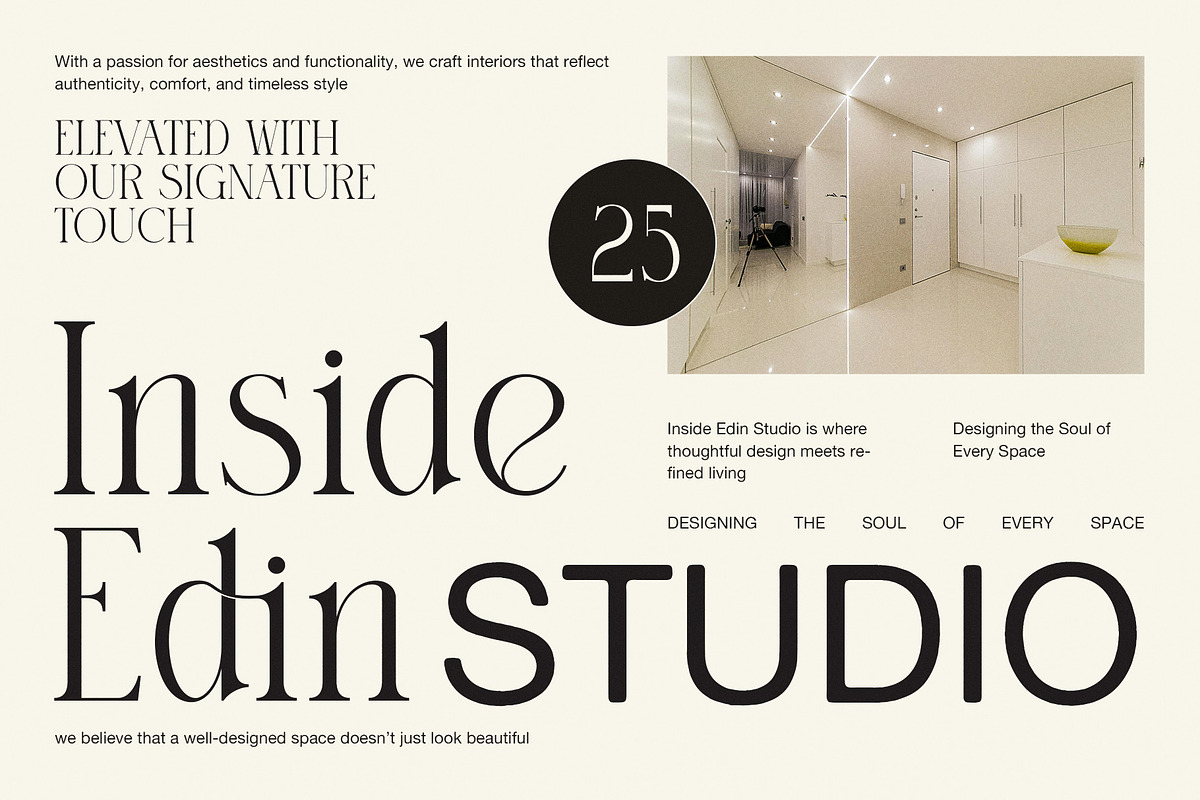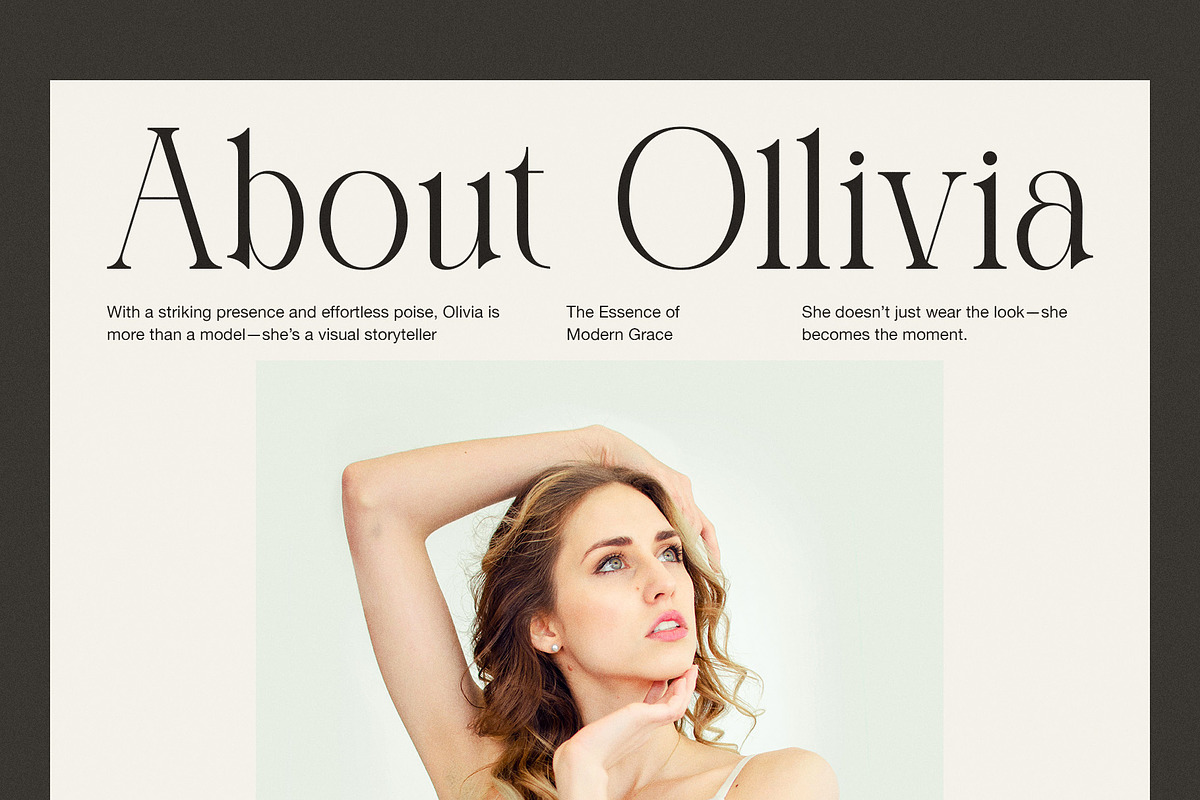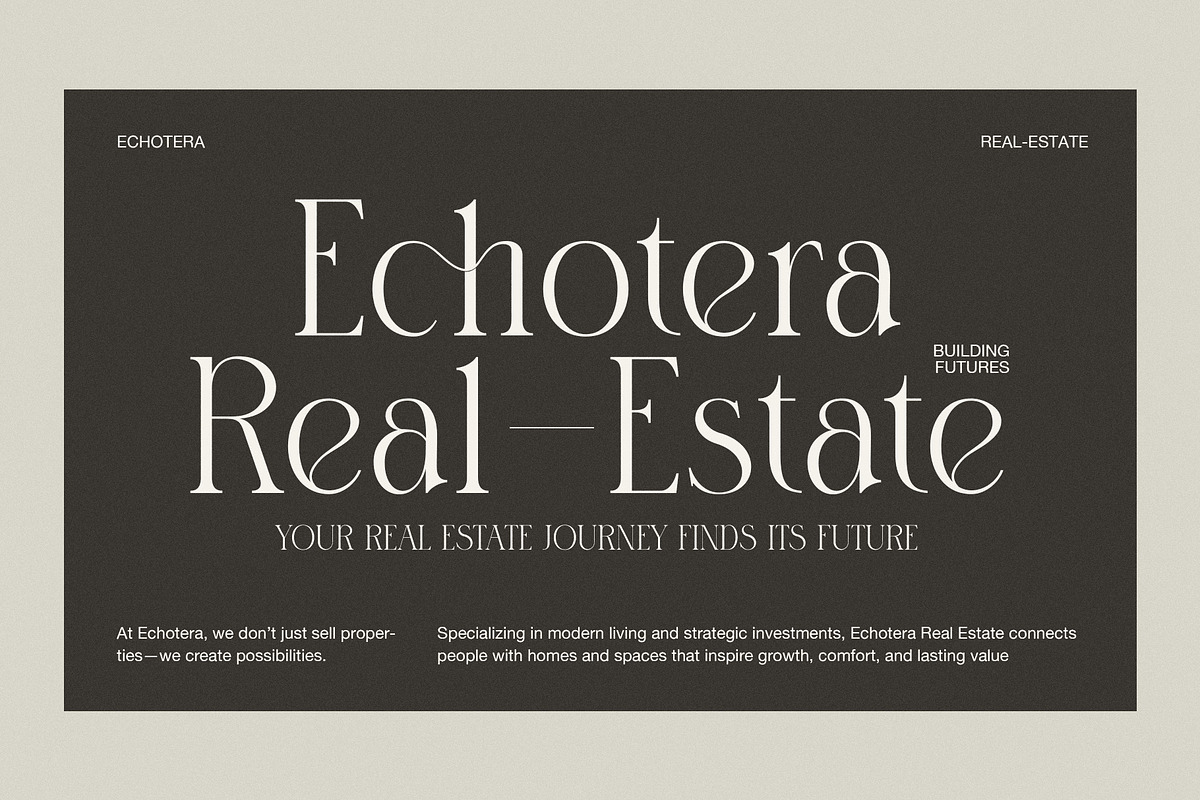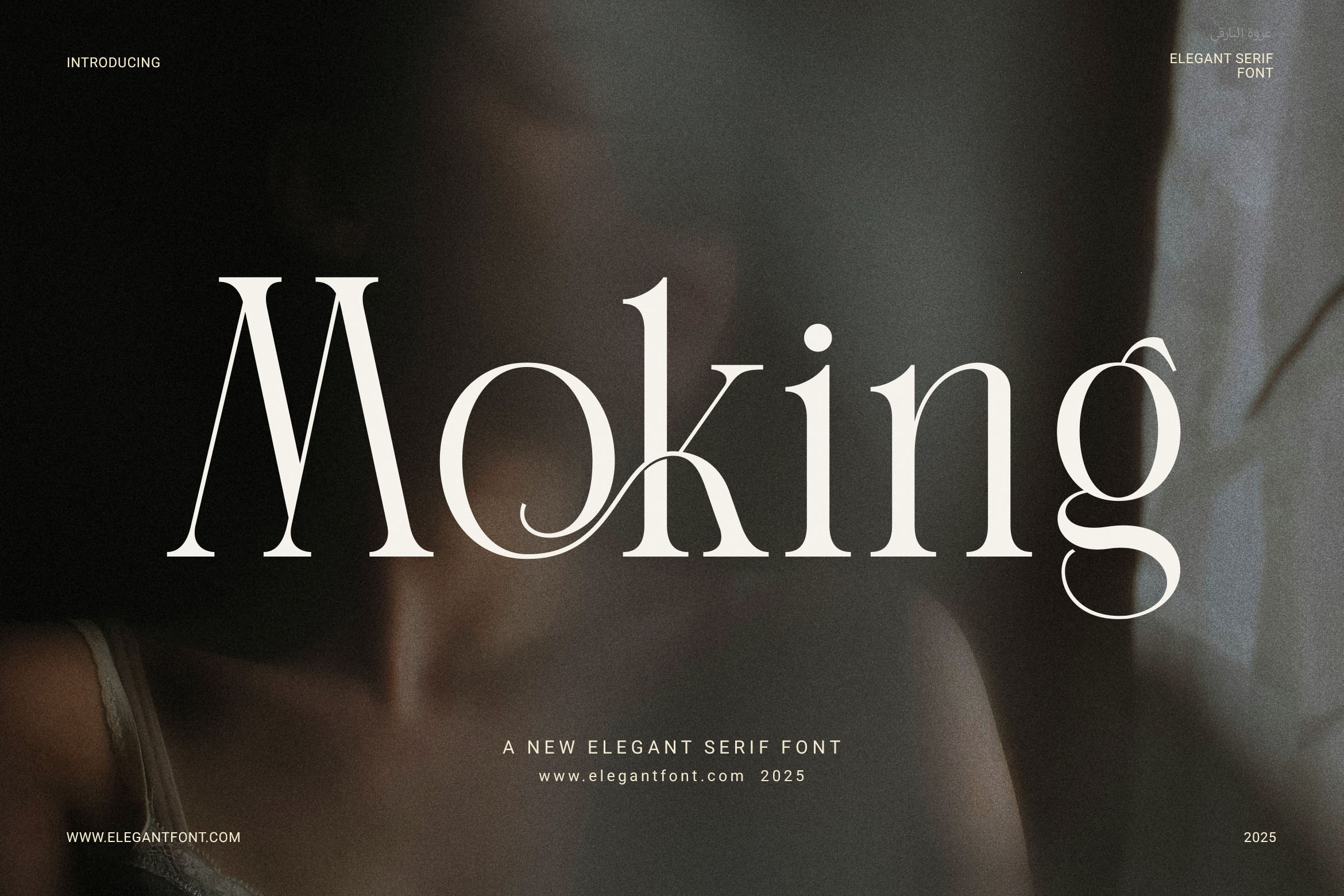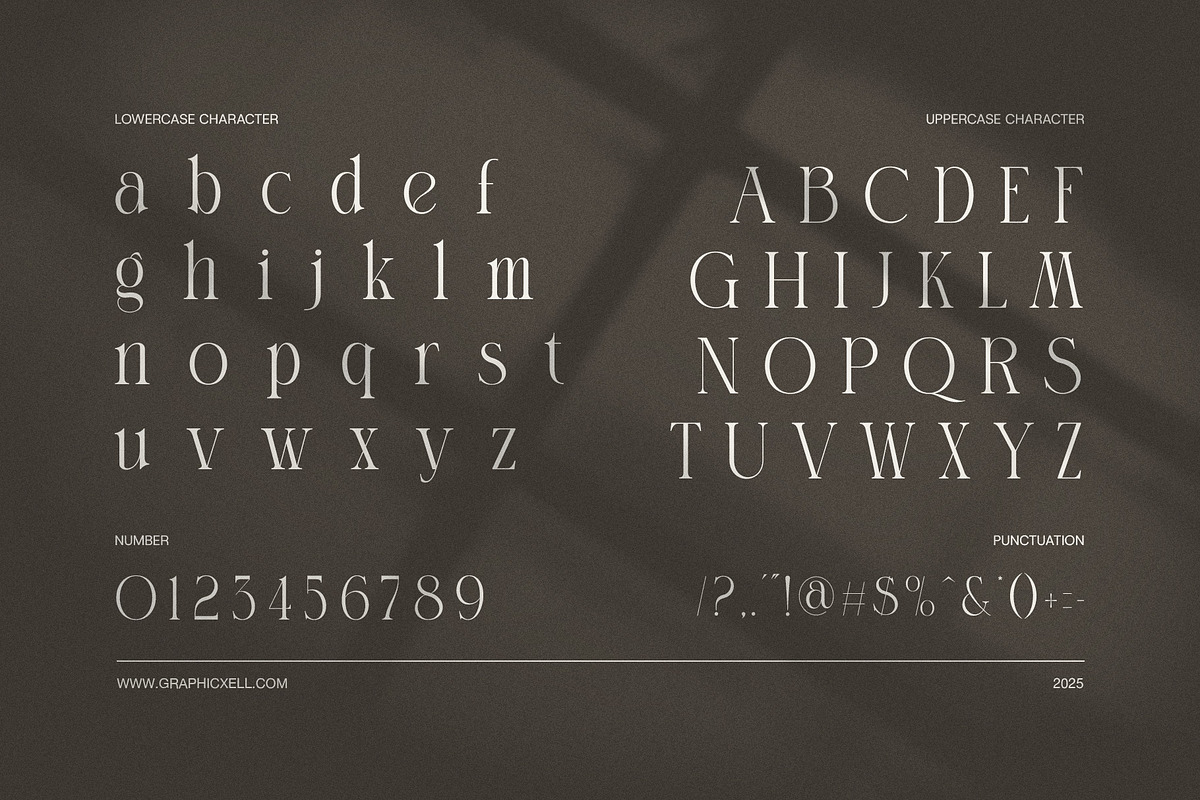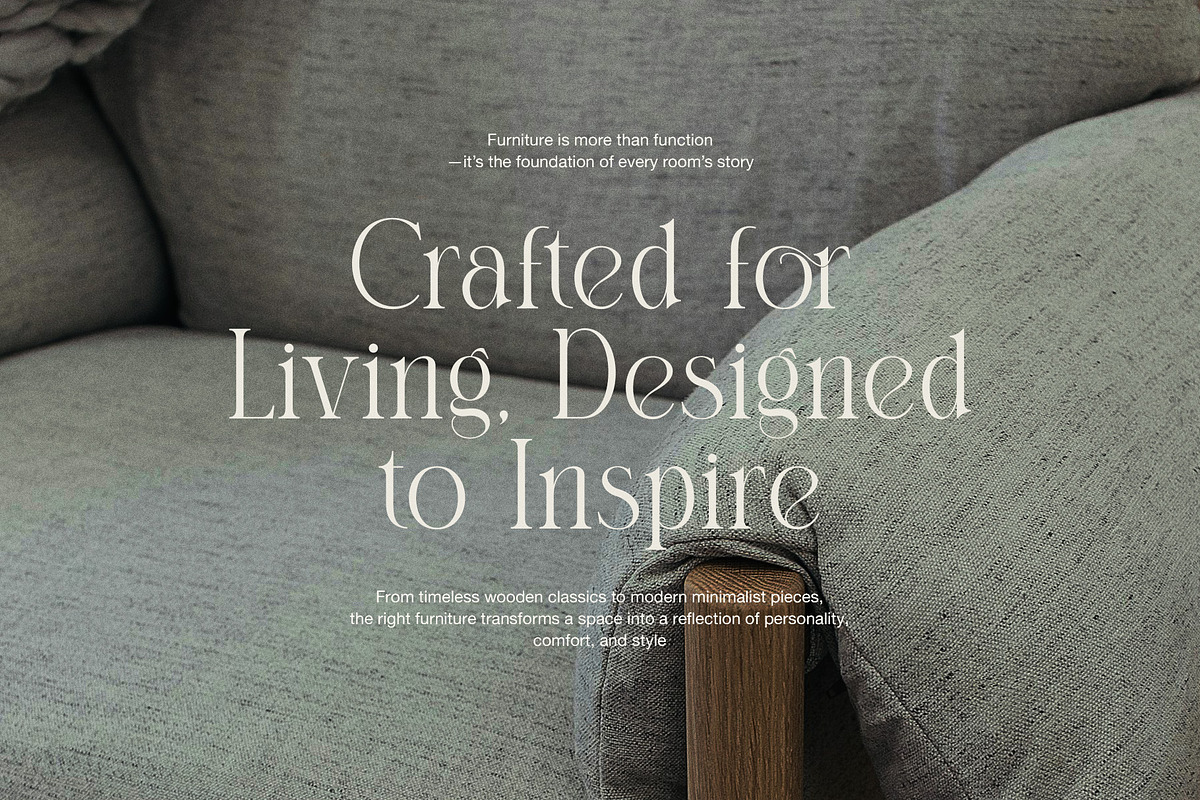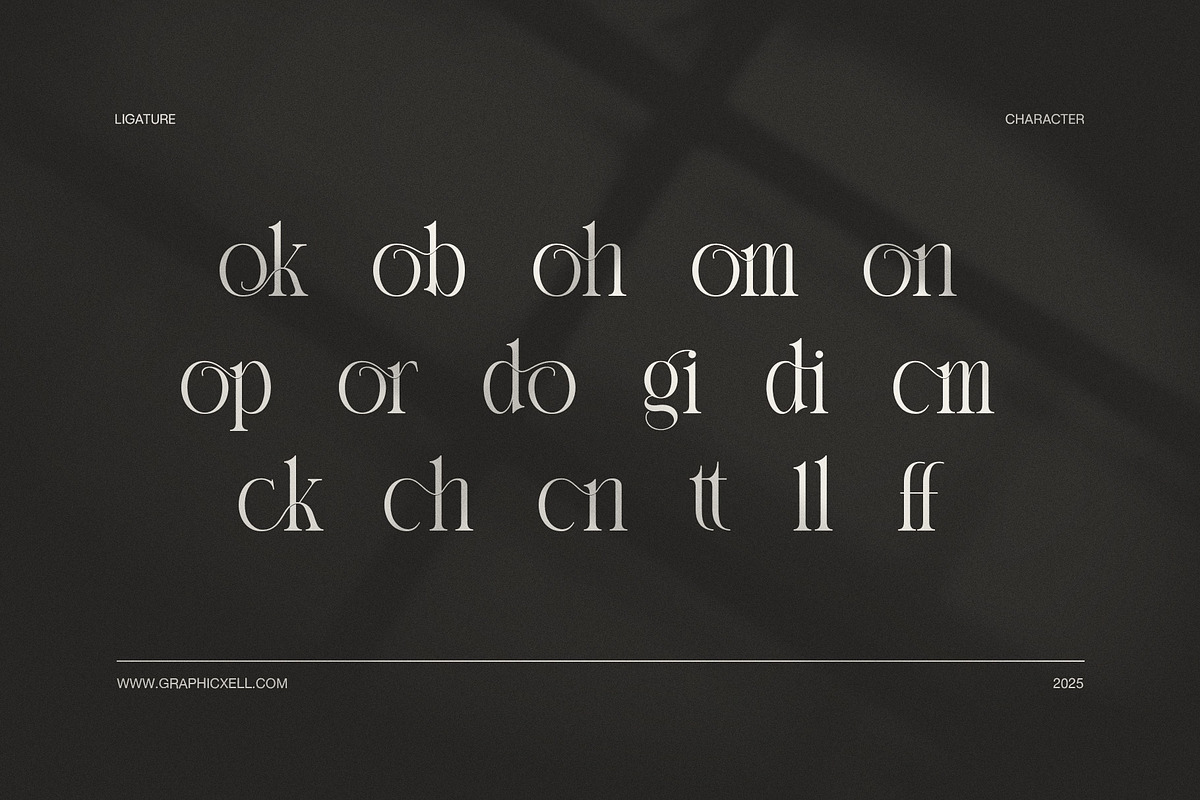
Moking Elegant Serif Font
Moking Elegant Serif Font is a stylish and modern typeface that brings a touch of class to every design. Its clean, proportional shapes are perfect for creating clear and polished visuals. Whether used in print or digital work, Moking adds a smooth and elegant tone to your layout.
This font was designed to work beautifully in both large and small text. It features functional ligatures that make words flow more naturally. As a result, your designs will feel more professional and visually balanced.
Moking is flexible enough to be used across many types of creative projects. Because of its elegant style, it’s ideal for:
Logos and branding
Product packaging
Magazine titles
Website headers and banners
Invitations and cards
Boutique menus and signage
Fashion promotions
Social media designs
Marketing materials
In addition, Moking supports OpenType features, allowing for greater control over your typography. It’s easy to use with most design software, so you can start creating right away.
Thanks to its timeless look and modern detail, Moking fits into almost any brand style. It works just as well for high-end luxury as it does for minimal and clean designs.
If you're looking for a serif font that looks sharp, elegant, and easy to read, Moking is the perfect choice.